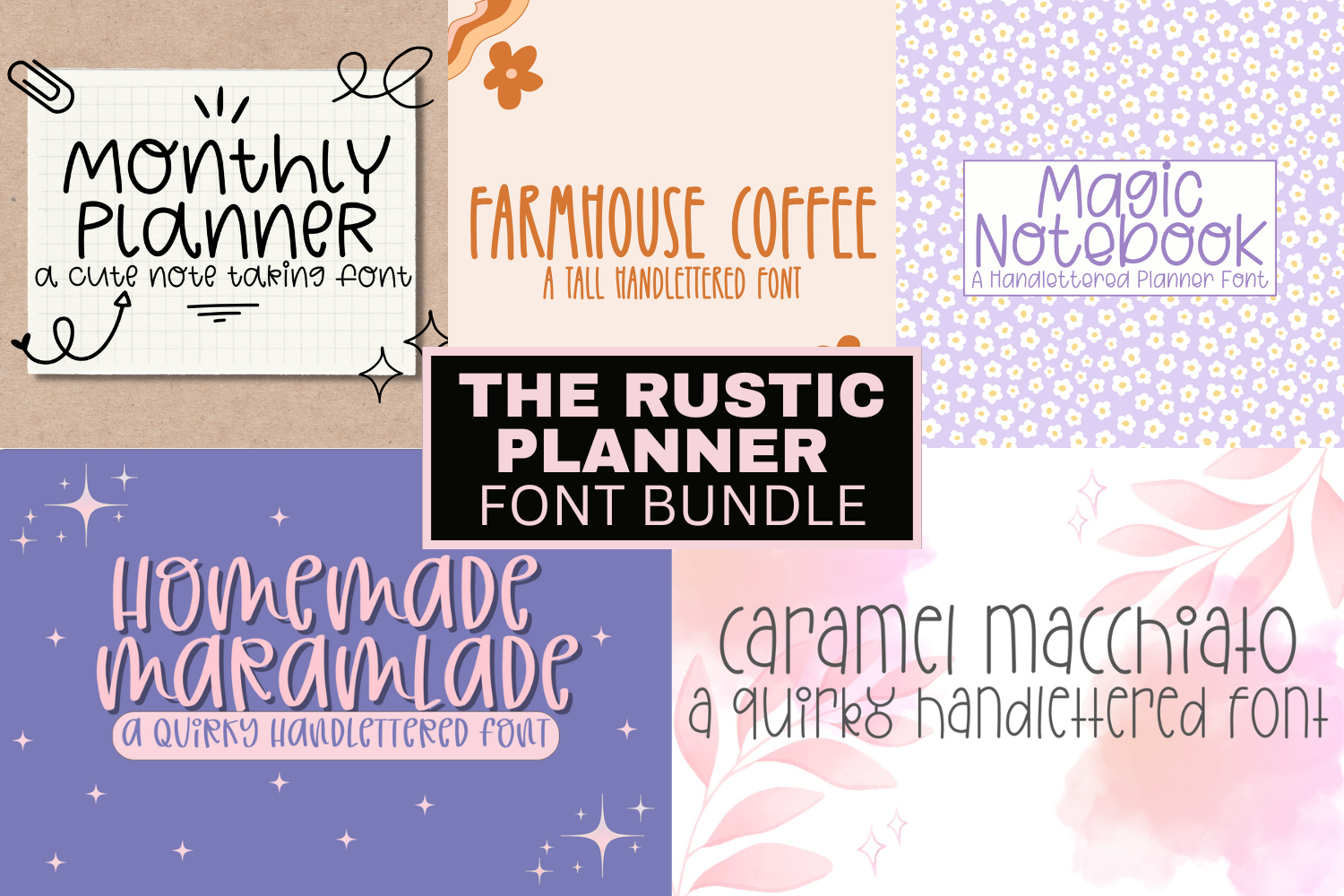
The Rustic Planner Font Bundle
CLCaramelMacchiato
CLHomemadeMarmalade
CLMonthlyNotebook
CIFarmhouseCoffee
CIMagicNotebook
Bring a touch of whimsy to your planners, notebooks, and creative projects with The Rustic Planner Font Bundle, 5 playful handlettered fonts designed especially for planners and journaling lovers. ✨
These fonts have a clean, handwritten style that feel cozy and fun—perfect for planner headers, digital stickers, bullet journals, scrapbooking, note-taking, and DIY stationery.